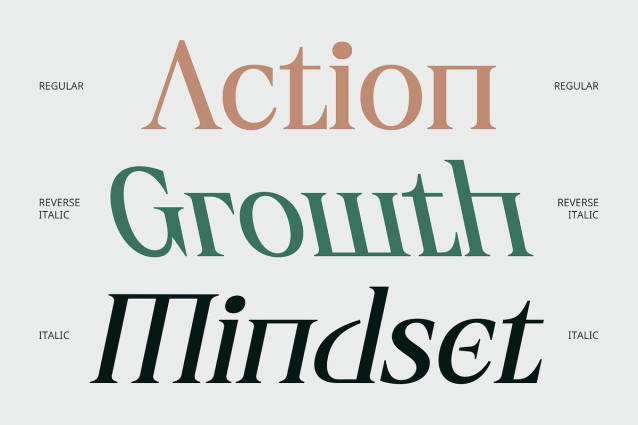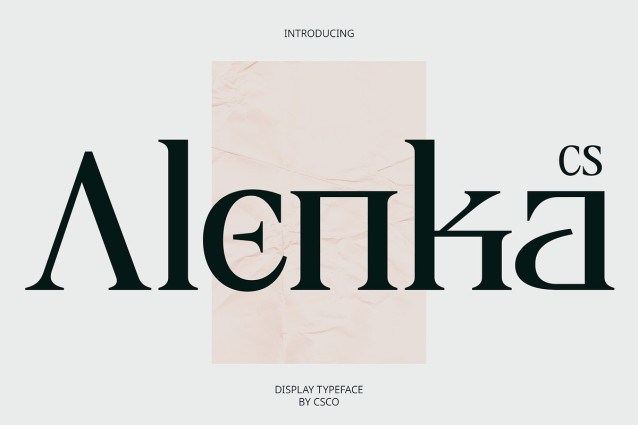
CS Alenka Font
CS Alenka Font is a modern display serif font that masterfully blends clean, geometric precision with a classic and graceful touch. Its bold, structured forms are balanced with refined details, giving the typeface a strong visual presence while retaining a sense of sophistication and poise.
Luxury Meets Professionalism Designed to convey luxury, confidence, and timeless beauty, CS Alenka’s stately letterforms are ideal for editorial layouts, premium branding, packaging, and any design that requires a refined and professional tone. Its contrast between thick and thin strokes adds visual richness without overwhelming the eye.
Perfect for Elevated Design Whether you’re crafting a high-end fashion brand, designing an elegant invitation, or creating a premium magazine spread, CS Alenka brings a polished and upscale feel. Its stylistic versatility allows it to shine in both headline and display settings, offering clarity and character in equal measure.
A Serif That Stands Out with Grace CS Alenka is more than just a classic font—it’s a modern statement piece. It speaks to an audience that appreciates design heritage but craves contemporary expression, making it the perfect choice for creators who want their work to feel both current and timeless.